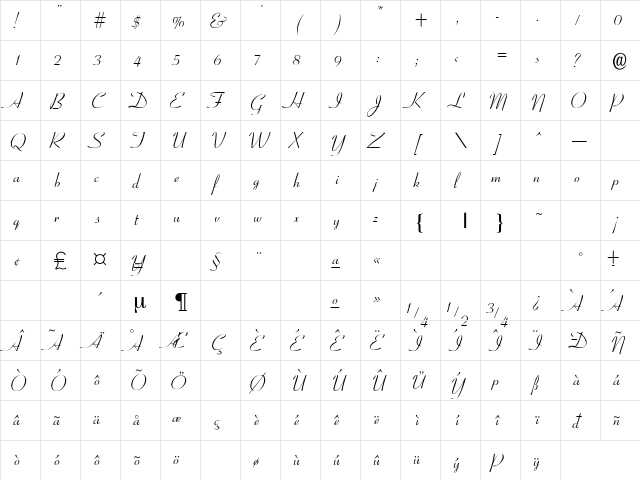
Ohio Script Regular Font Preview
Ohio Script Regular
Ohio Script Regular Font Details
Design Context for Ohio Script Typeface
Ohio Script brings a calligraphic fluidity to the page — its connecting strokes and expressive curves give it an unmistakably human quality.
Font Pairing: Combine Ohio Script with a simple geometric sans for maximum contrast — the tension between flowing curves and clean structure is a classic typographic pairing.
Pro Tip: Pair Ohio Script with a clean sans-serif for supporting text. The contrast between fluid script and geometric structure creates an elegant typographic hierarchy.